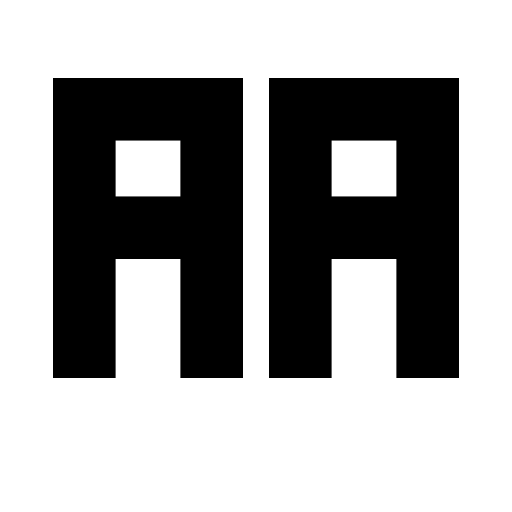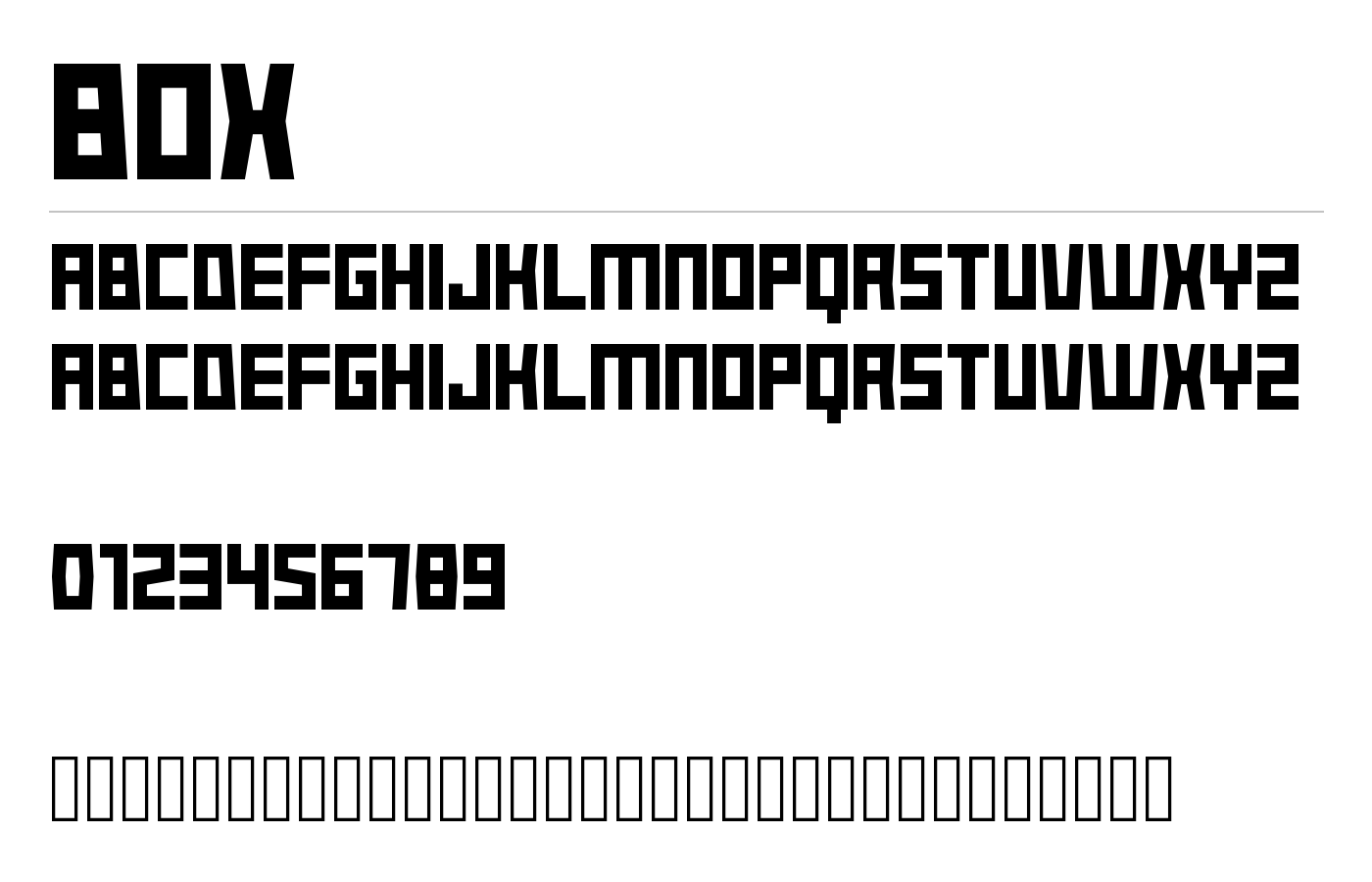
Box Font is a bold, geometric sans serif typeface characterized by its strong rectangular shapes and uniform stroke weight. Its rigid, blocky design with high x-height and squared-off edges gives it a modern, industrial feel, making it ideal for logos, headlines, and graphic designs that need a striking, tech-inspired look. This font works best in contexts where clarity and impact are key, such as posters, branding, and digital interfaces.
Box Font
About Box Font